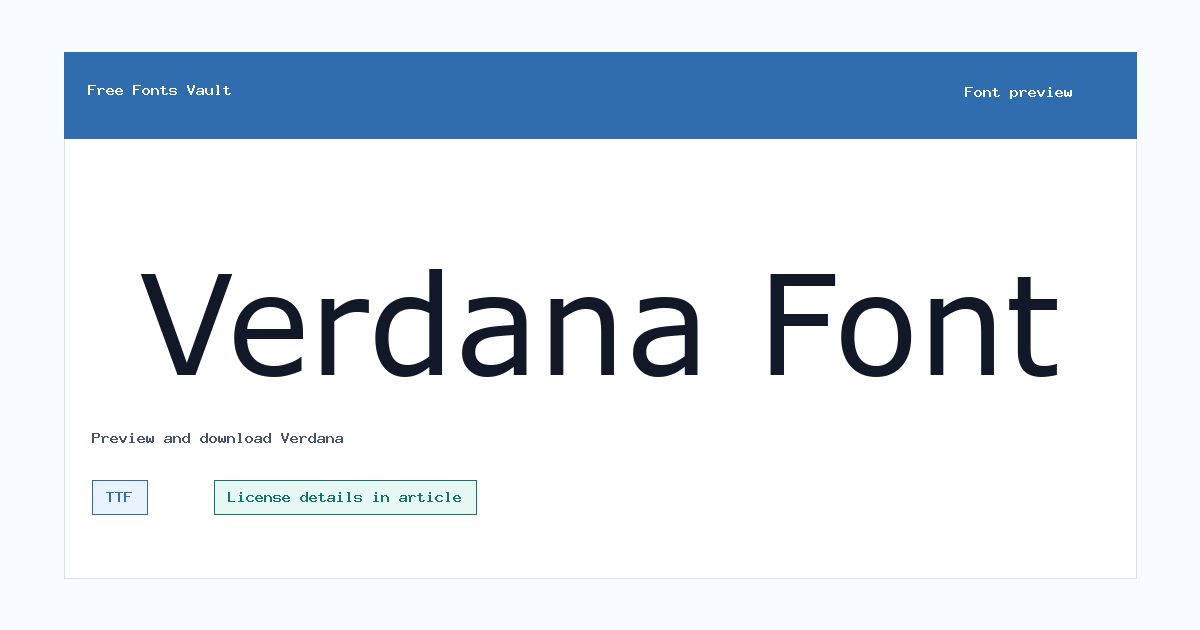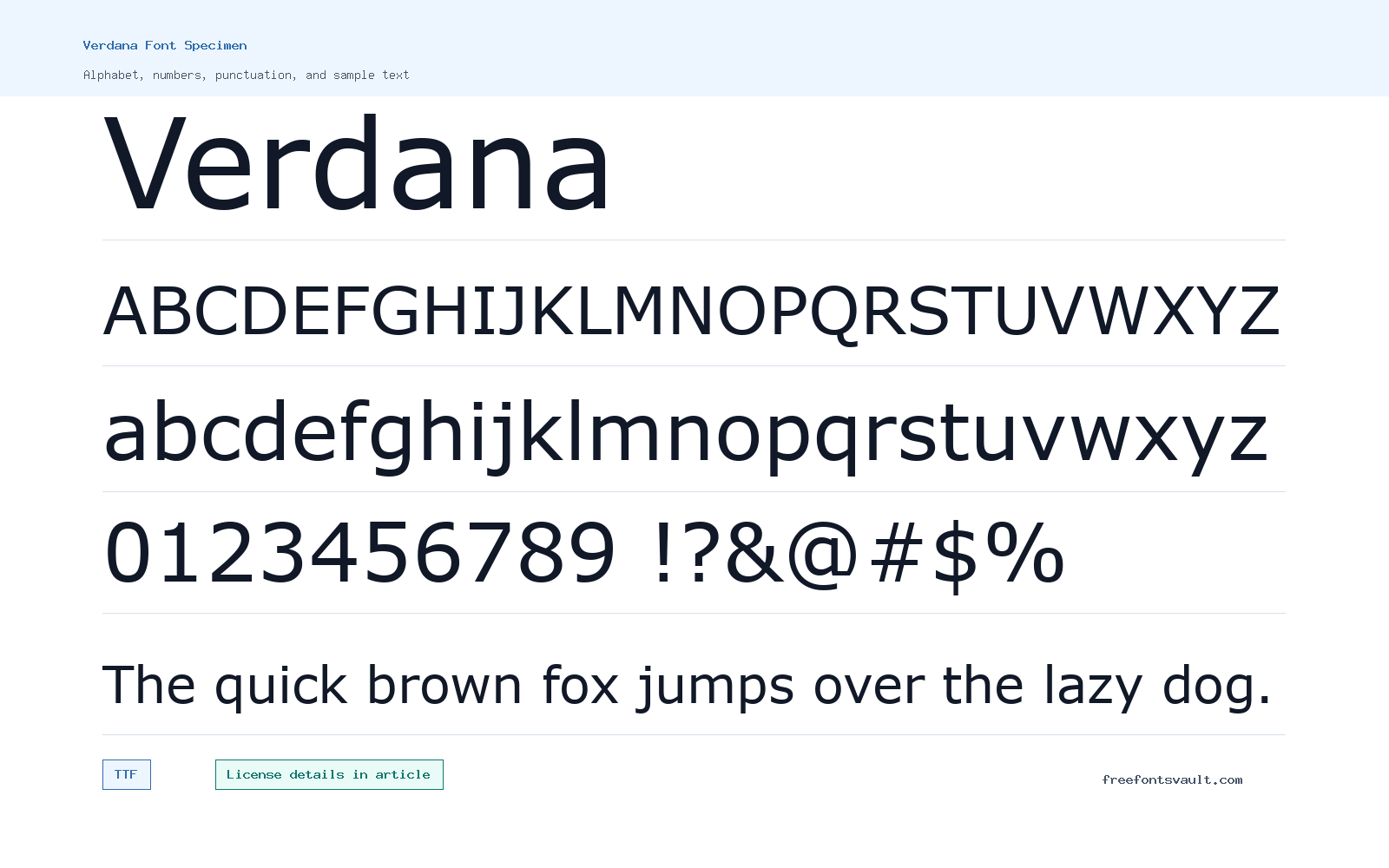
Verdana
Verdana Font
Verdana font.
Verdana is a practical sans serif font family with TTF files for regular, bold, and bold italic text. It is useful when you want a clear, familiar look for short passages, headings, labels, and interface-style text.
About Verdana
Verdana works well for readers who need a straightforward font without decorative details. The family name is simple, the letterforms are easy to test in a preview box, and the included weights let you compare normal text against stronger emphasis before downloading.
Use the preview tool with the exact words you plan to set. Try lowercase text, all-caps headings, numbers, punctuation, and a few longer lines. The regular style is the best first test for body-sized text, while the bold and bold italic files are better for titles, callouts, buttons, or emphasized words.
Verdana is a practical sans-serif choice when readability matters more than decoration. It is useful for interface mockups, captions, menus, body copy tests, labels, and any project where the words need to stay clear at ordinary reading sizes. Use the preview to compare sentence text as well as single words.
Because Verdana is often associated with screen reading, it can feel straightforward and familiar in digital layouts. That makes it a good baseline font for testing spacing, line height, form labels, and paragraph rhythm before moving to a more expressive typeface.
• Website text, UI labels, buttons, and navigation where a plain sans serif style is needed
• Headings, captions, short descriptions, and preview mockups that need regular and bold contrast